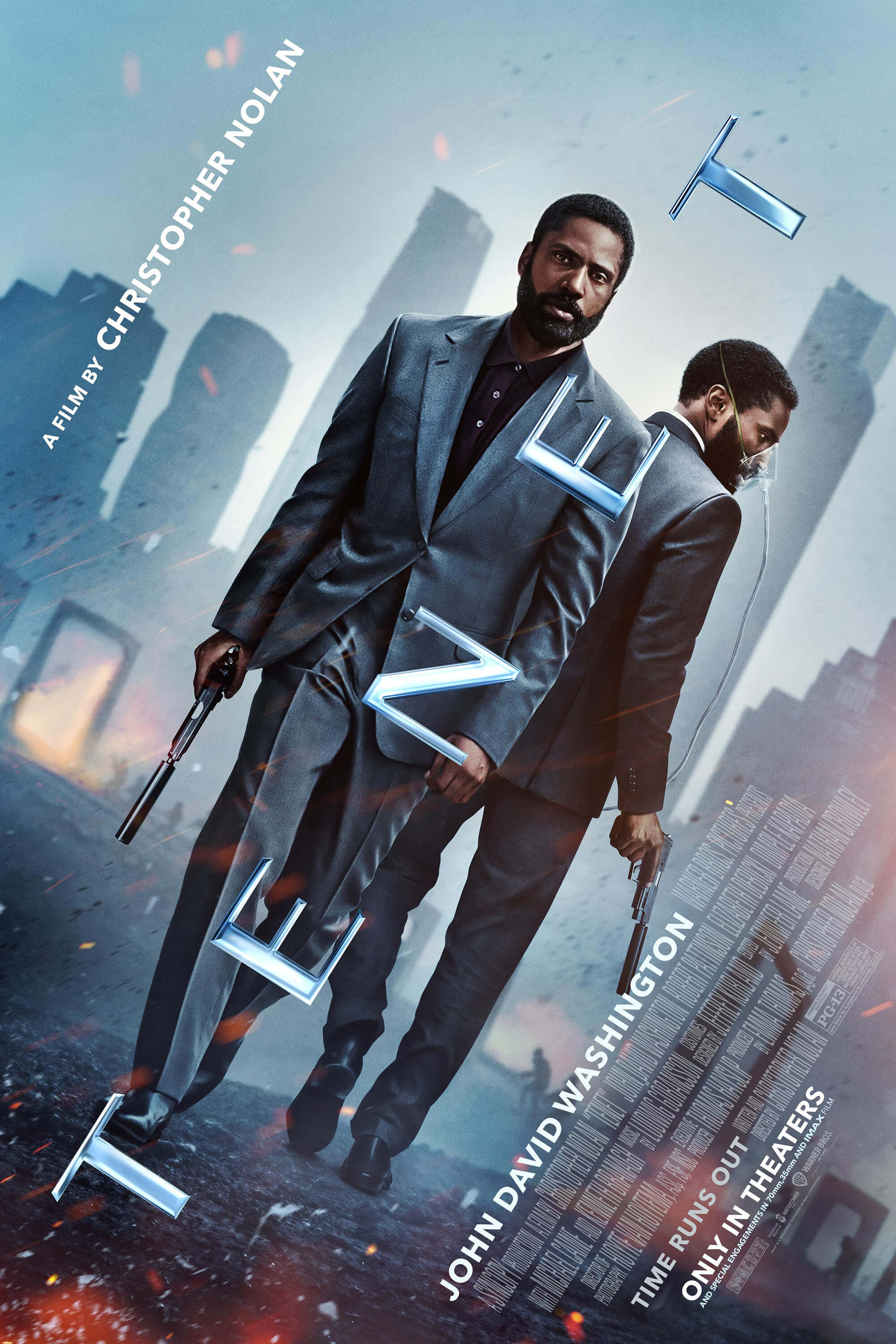
TENET Font
ActionTenet is a 2020 action-thriller and science-fiction film directed by Christopher Nolan. The movie depicts a former CIA agent who discovers how to control time in order to stop a future attack that could destroy the planet.
On the poster, the Tenant title is in a font that is very similar to Mark Simonson's Acme Gothic Extrawide Regular. With five widths and five weights, the sans serif font family features 25 different styles based on the thick and thin gothic lettering popular in the first half of the twentieth century.